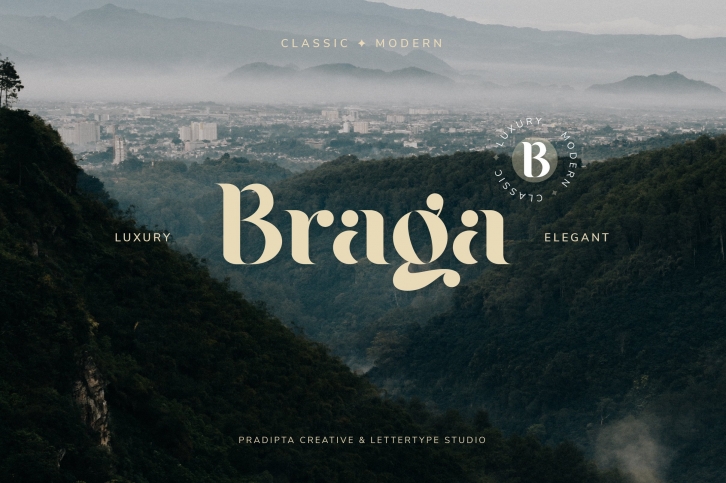
Braga is a classy and trendy serif font. Fall for its ravishing style and use it to create gorgeous wedding invitations, beautiful stationary art, eye-catching social media posts, and much more!Â